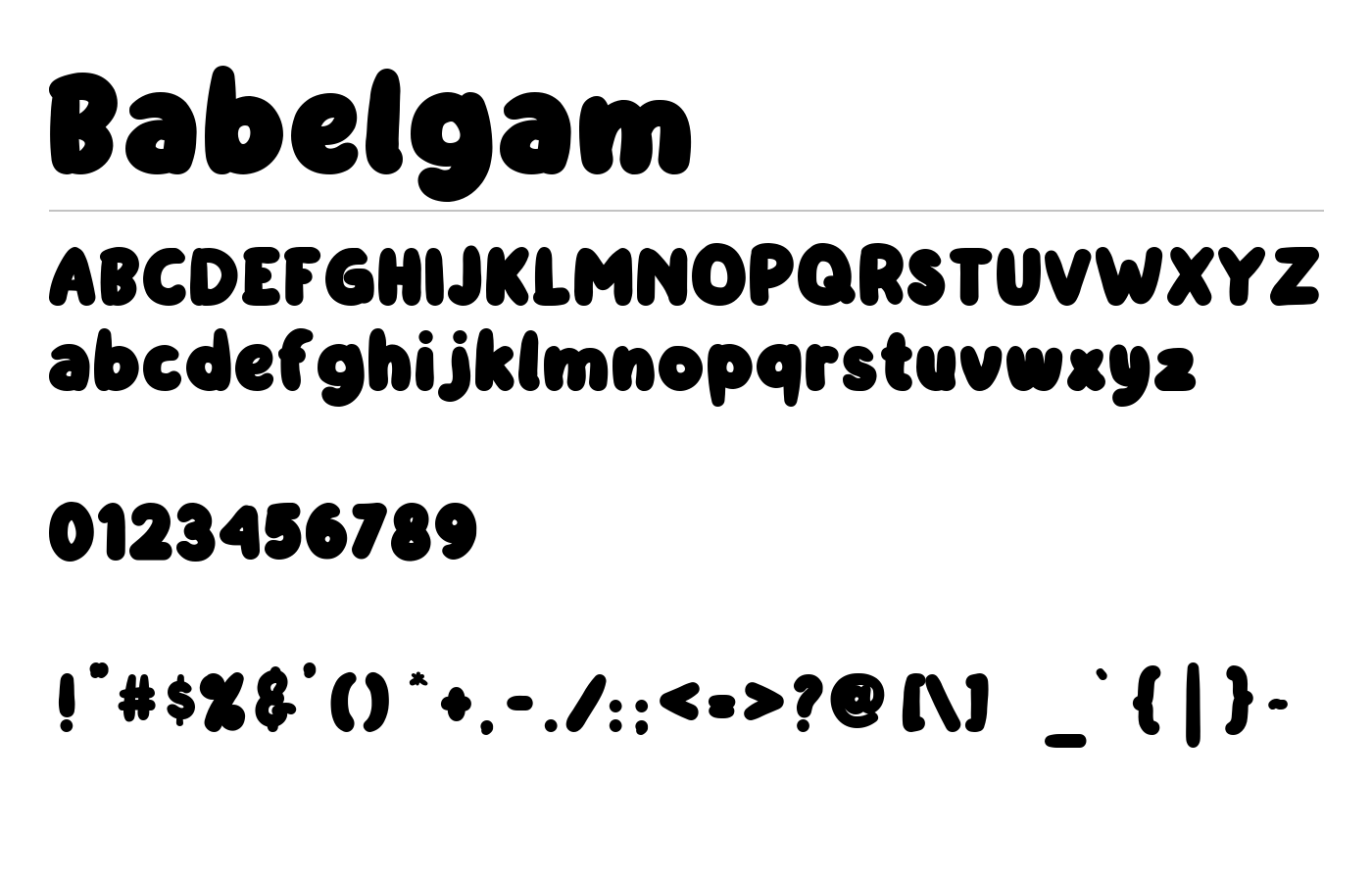
Babelgam is a bold, rounded sans serif font with a playful and friendly character. Its heavy weight and soft, bubbly shapes create an inviting and informal feel, making it perfect for logos, children’s content, and fun, eye-catching headlines. This font’s approachable style works well when you want to add warmth and personality to your designs.
Babelgam Font
About Babelgam Font